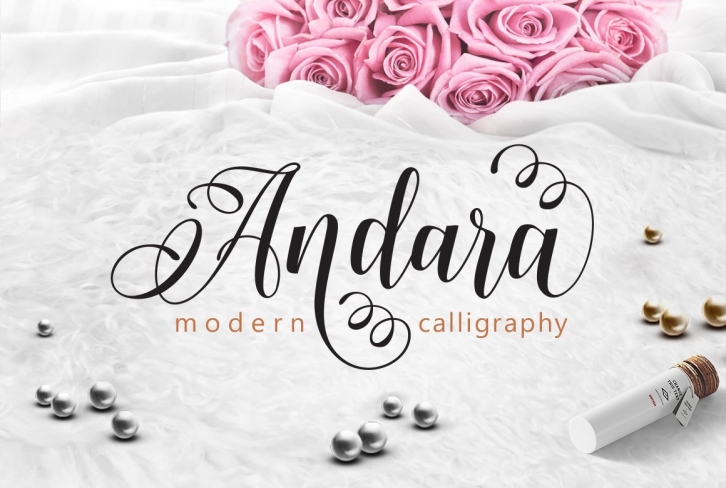
Andara Script, Calligraphy Font
Andara Script, is a calligraphy contemporary & wavy calligraphy, modern and clasik, so soft, perfect for your next design, such as logos, printed quotes, invitations, cards, product packaging, headers and anything else about your imagination.
Andara Script allows you to create custom dynamic text. you can access by turning on; Stylistic Alternates, Stylistic Set, Initial Forms, Terminal Forms as well as ligatures in Photoshop, Adobe Illustrator, Adobe InDesign or through a panel of glyphs such as Adobe Illustrator, Photoshop CC, Let's swirl from the reguler character into character alternative to get the text with the layout of your dreams. Andara Script also includes glyphs, punctuation, numbers, and multilingual.
The Features of this fonts is: Standart ligatures, Init, Fina, Stylistic Alternates, Stylistic Sets 01 - Set 09.
Features Basic Latin A-Z and a-z Numbers Symbols